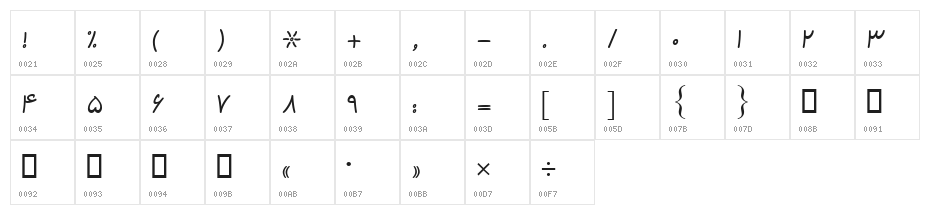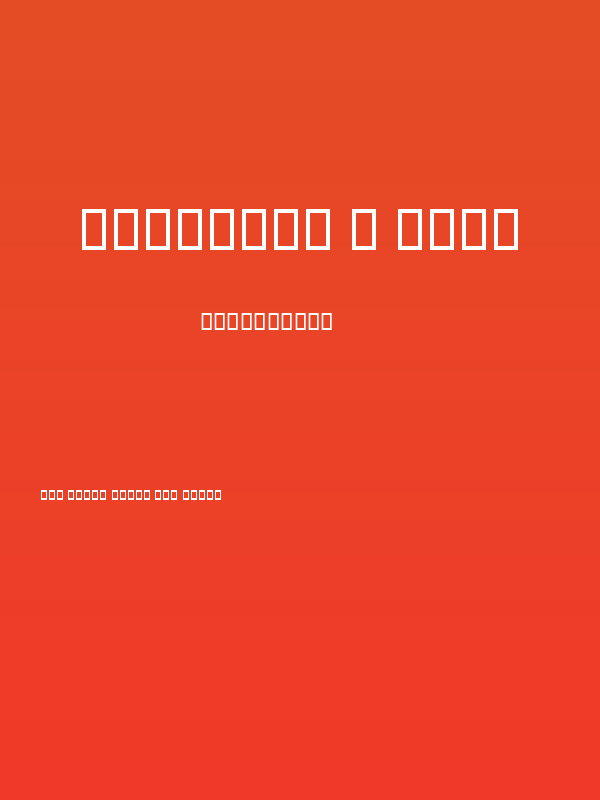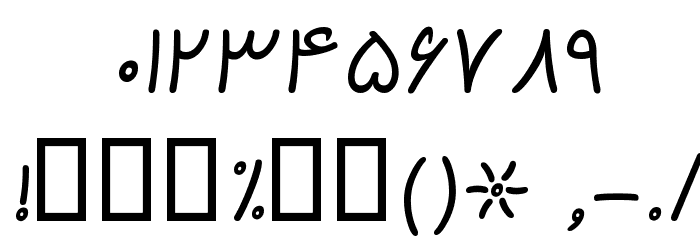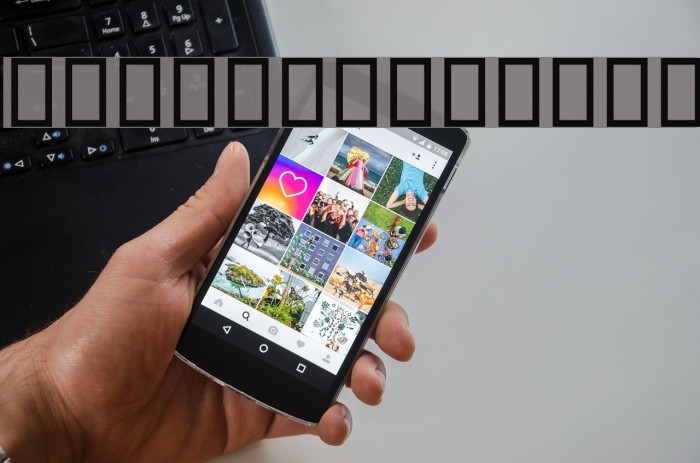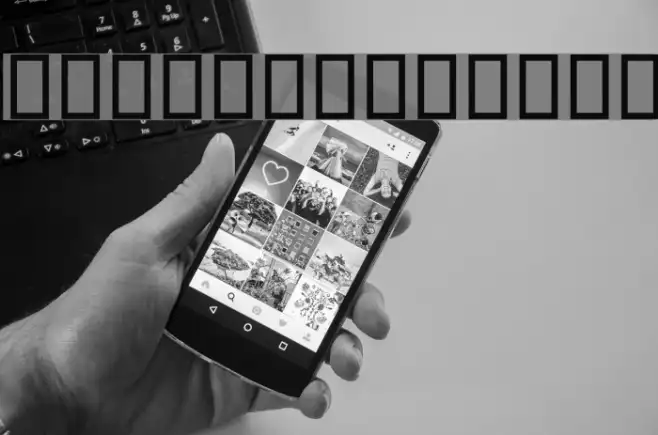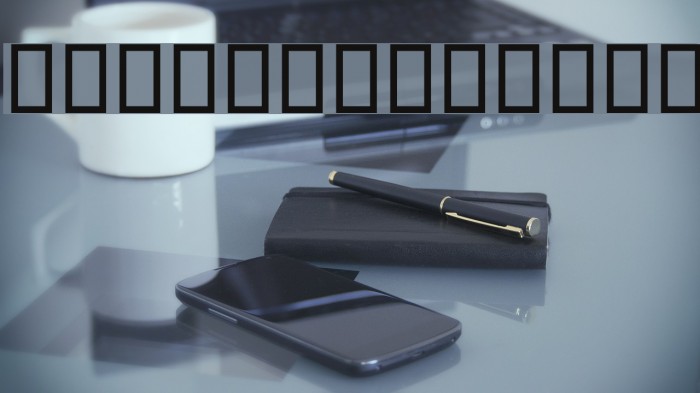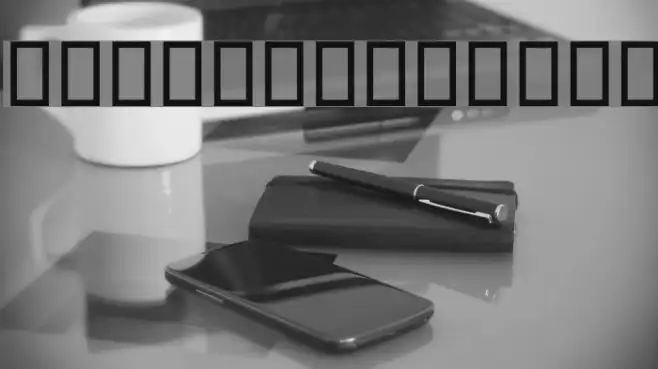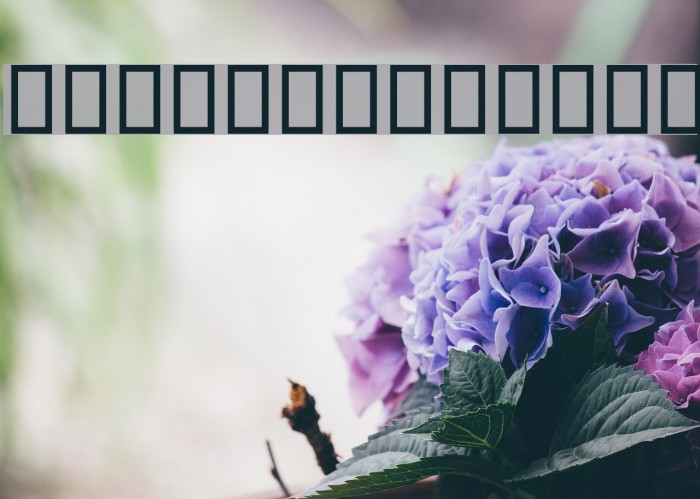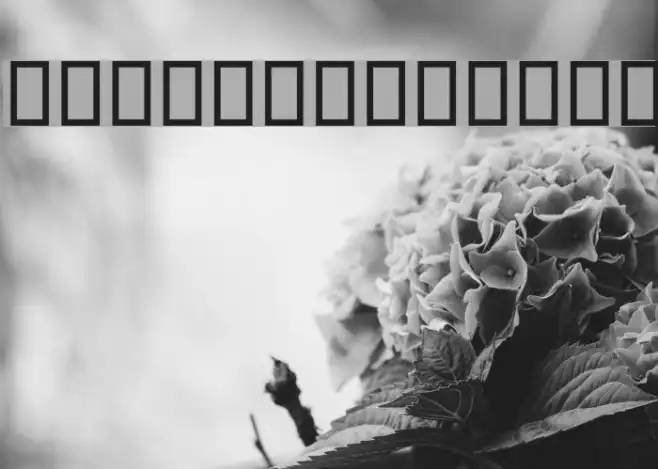
Destkhat I Bold Font
Destkhat I Bold Description
This font features a bold and expressive style with a handwritten appearance. The characters are slightly slanted, giving it a dynamic and casual feel. The strokes are smooth and fluid, with varying thickness that adds a touch of elegance and personality. The numerals and special characters maintain the same handwritten charm, making the font versatile for creative projects. Its unique style makes it stand out, suitable for designs that require a personal and artistic touch.